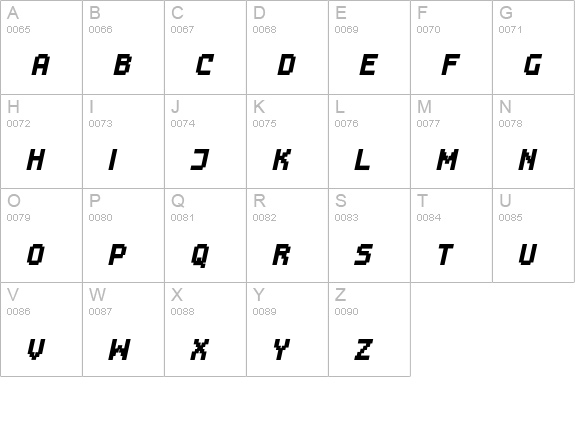
DisposableDroid BB Bold Italic Font Details
DisposableDroid BB Bold Italic is a strong, high-contrast, italic variant in the DisposableDroid typeface family \xE2\x80\x94 well suited to headlines, attention-grabbing titles, and strong calls-to-action.
Introducing DisposableDroid BB Bold Italic, a captivating font that effortlessly combines boldness with elegance. This unique and eye-catching typeface is perfect for adding a touch of sophistication to your designs. DisposableDroid BB Bold Italic is not just visually stunning; it also offers incredible versatility. Its distinctive italicized style adds a dynamic and modern twist, making it ideal for a wide range of creative projects. Whether you're designing logos, posters, or social media graphics, this font is sure to make a lasting impression. But what sets DisposableDroid BB Bold Italic apart is its availability - it's completely free! You can easily download this font from FontsMarket.com, a trusted source for high-quality fonts. With just a few clicks, you can enhance your designs with this stylish and impactful typeface without spending a dime. Don't miss out on the opportunity to elevate your designs with DisposableDroid BB Bold Italic. Download it for free today at FontsMarket.com and unleash your creativity like never before.